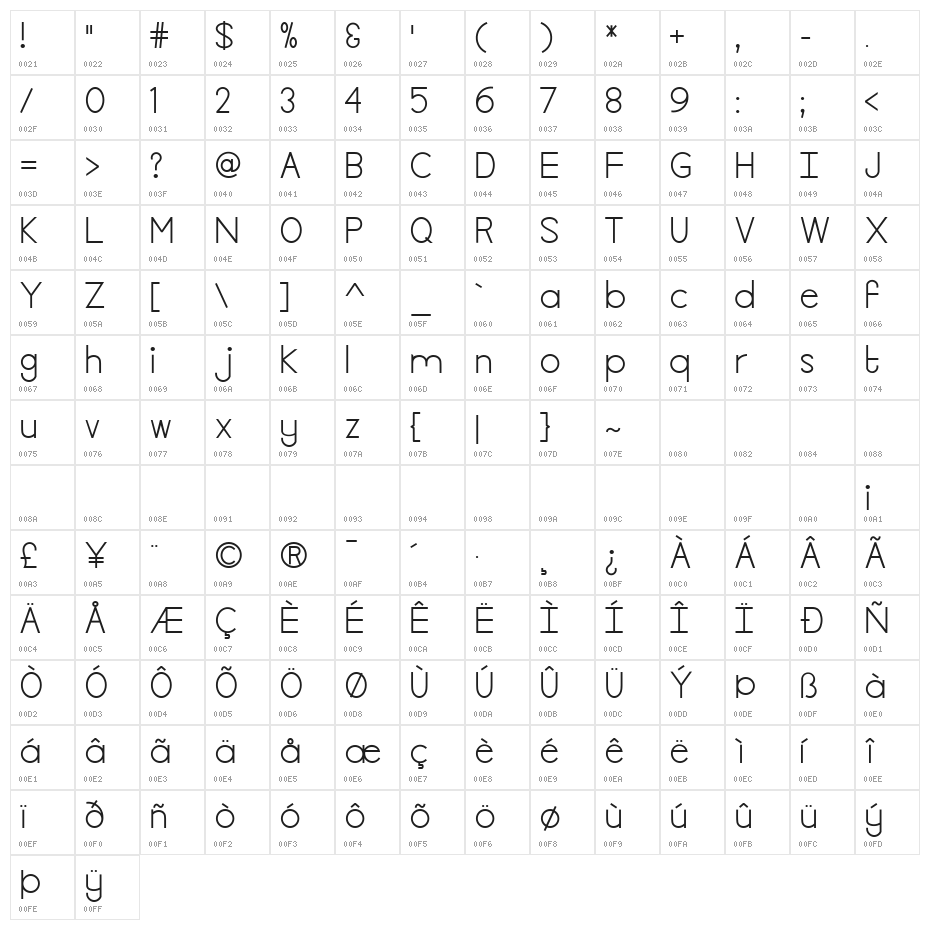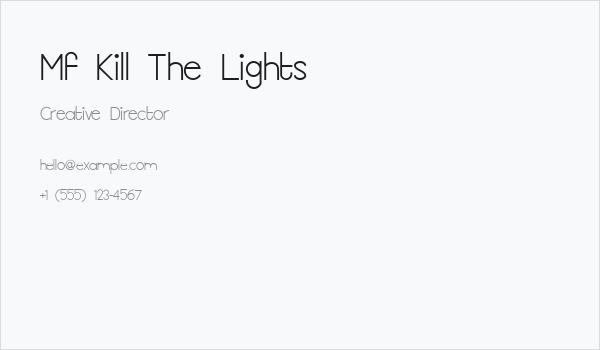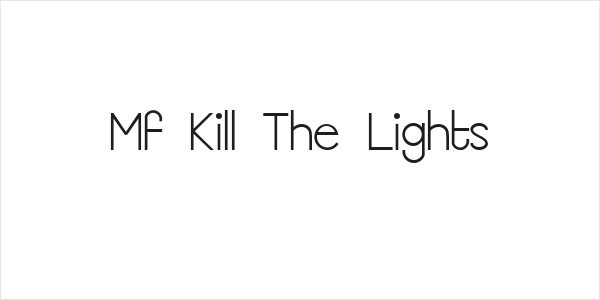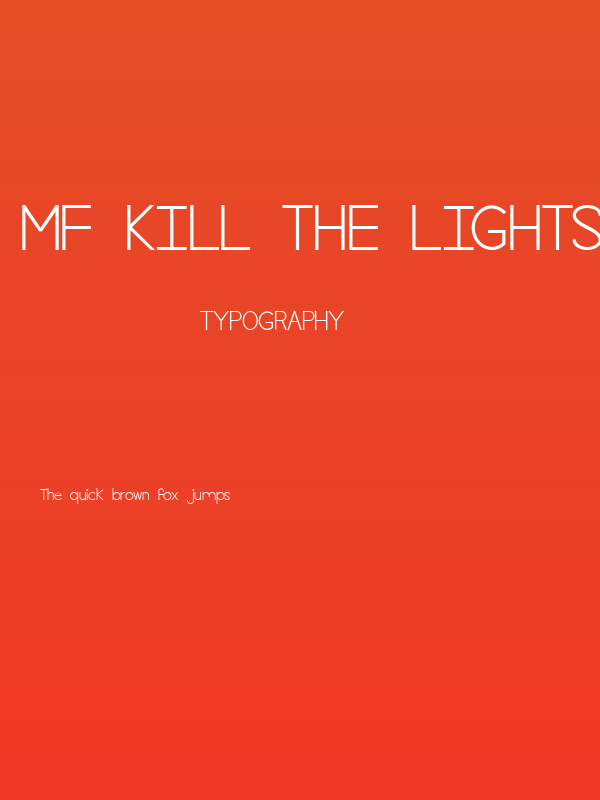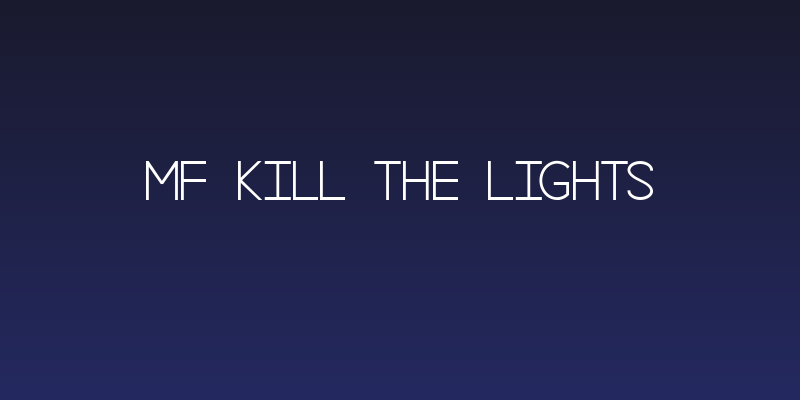
Mf Kill The Lights Font
Mf Kill The Lights Description
This font features a clean, geometric sans-serif style with uniform stroke widths, creating a modern and minimalist appearance. The characters are well-balanced with a consistent height and width, contributing to a harmonious and orderly look. The uppercase letters are bold and assertive, while the lowercase letters maintain a friendly and approachable feel. The numerals are clear and easily distinguishable, making them suitable for various applications. Special characters are included, enhancing the font's versatility. Overall, the design is sleek and contemporary, ideal for projects that require a professional yet stylish touch.